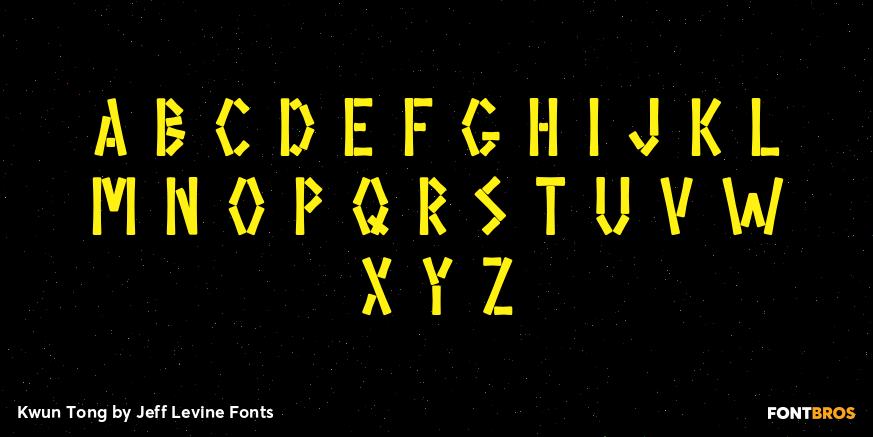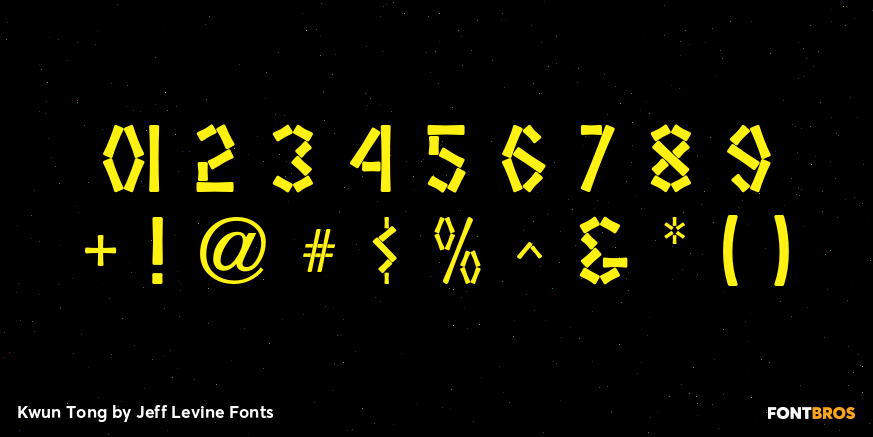
Kwun Tong
Loosely based on a hand lettered title found on vintage sheet music for the song "Hong Kong", the design for Kwun Tong JNL emulates the letters and numbers formed from pieces of bamboo stalk.
Kwun Tong JNL is named for a locality in Hong Kong although (according to Wikipedia) "the Hong Kong Government is unitary and does not define cities and towns as subsidiary administrative units."